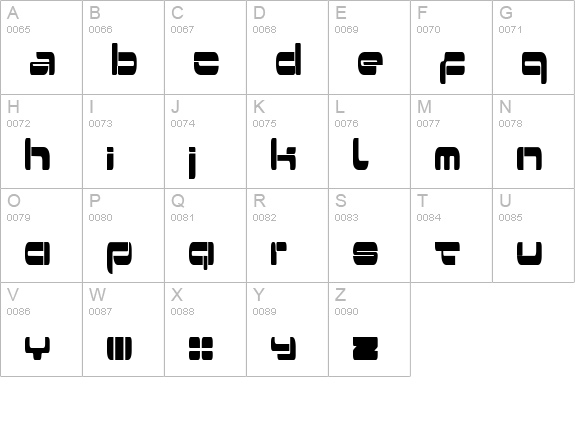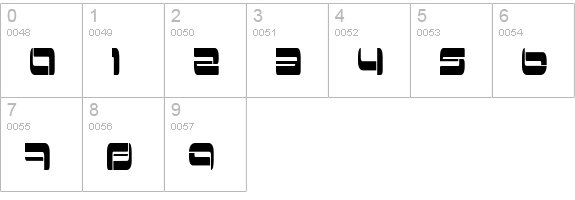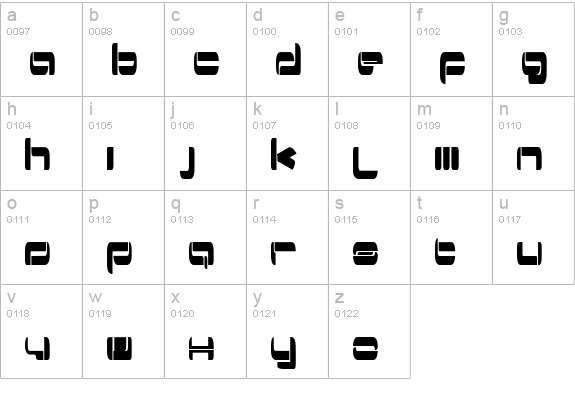
Switzerland font is a sleek and modern typeface that exudes elegance and sophistication. Its clean lines and minimalist design make it perfect for a wide range of projects, from branding to editorial design. This versatile font is free to use and available for download at FontsMarket.com. With its timeless appeal and legibility, Switzerland font is sure to elevate any design and leave a lasting impression.